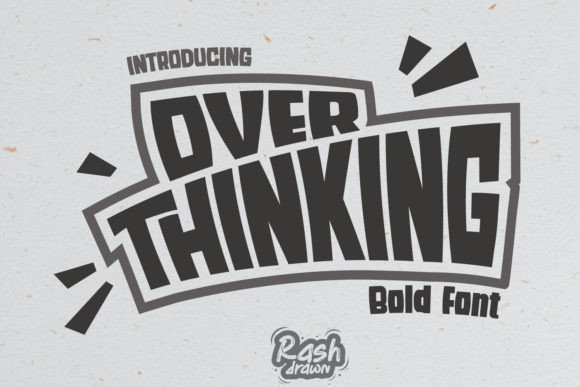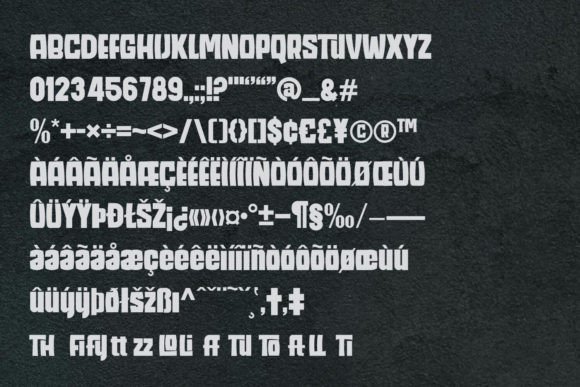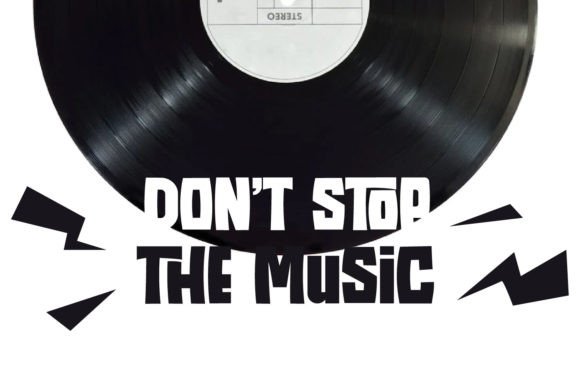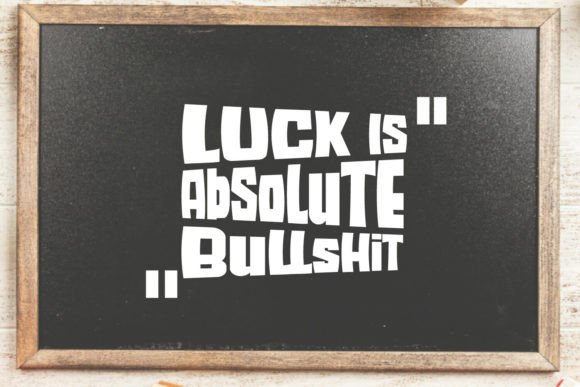
Over Thinking Font: A Unique & Bold Display Typography
About the Over Thinking Font
Explore the possibilities with Over Thinking Font, a font that offers both beauty and functionality. Introducing Over Thinking, a modern display typeface take on a thick line style. It has a unique shape on selective characters, that’s sure to make your designs stand out.
Over Thinking Font’s bold, distinctive character makes it ideal for headlines, short impactful statements, and branding applications where a strong visual identity is key. It excels in posters, logos, and packaging design, adding a modern and memorable touch. However, its thick strokes and unique letterforms are less suitable for body text or UI elements; the unusual shapes can hinder readability in extended passages.
Consider pairing Over Thinking with a clean sans-serif like Montserrat for a balanced contrast, or a more delicate script font such as Great Vibes to soften its boldness for invitations or feminine branding. For a more modern and geometric feel, pairing with a font like Lato would provide a structured counterpoint to Over Thinking’s playful irregularity.
The font projects a confident, slightly rebellious personality, ideal for brands aiming for a unique and memorable image. Its unconventional shapes suggest creativity and forward-thinking, making it suitable for projects in fashion, technology, and entertainment.